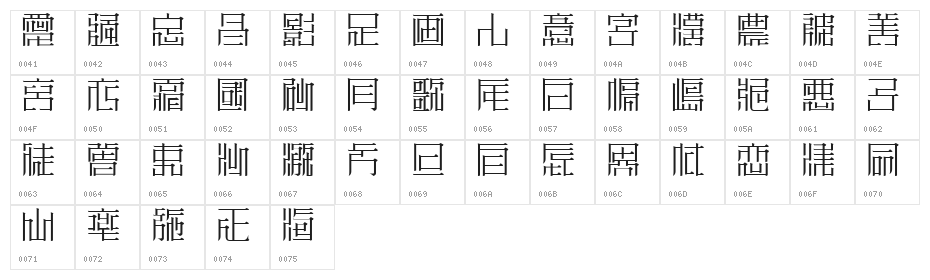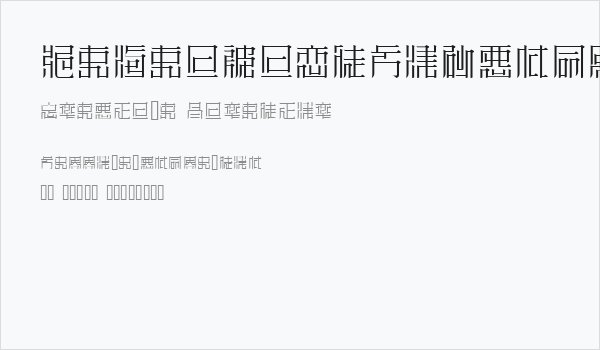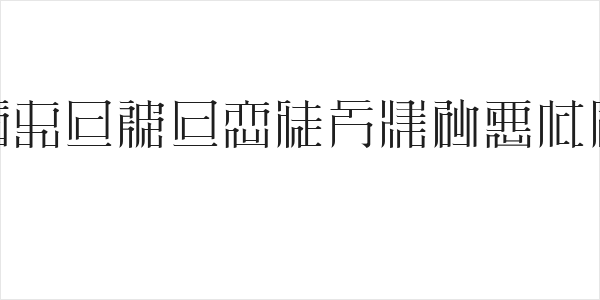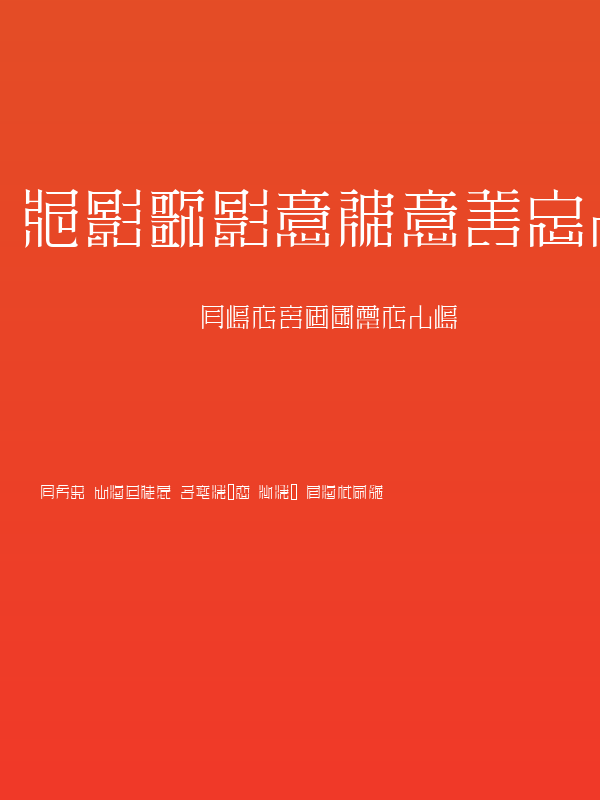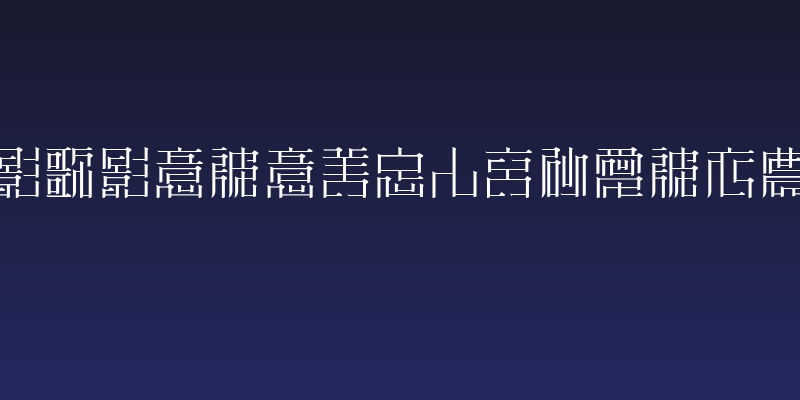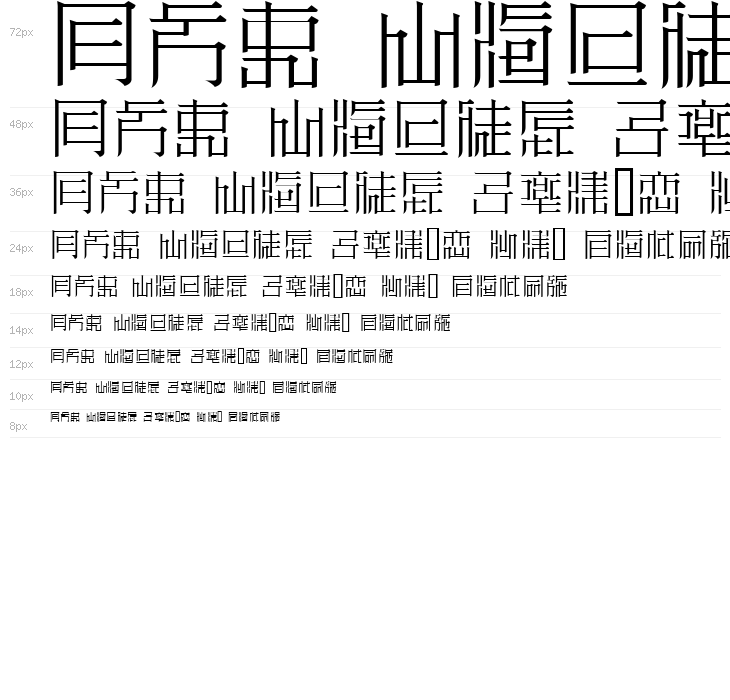
ZeueiMinchoSample Font
This font features a traditional Japanese Mincho style, characterized by its elegant and refined strokes. The characters exhibit a balanced contrast between thick and thin lines, typical of Mincho fonts, which adds a sense of sophistication and readability. The serifs are distinct and sharp, providing a classic and formal appearance. This style is often used in print media, such as books and newspapers, due to its legibility and timeless aesthetic. The overall design is harmonious, with a structured and orderly arrangement of strokes that convey a sense of stability and tradition.
Overall StyleClassic
Use CaseBody text, Print media
Proposed ProjectsIdeal for book publishing, newspapers, formal documents, and any project requiring a classic and sophisticated Japanese typeface.